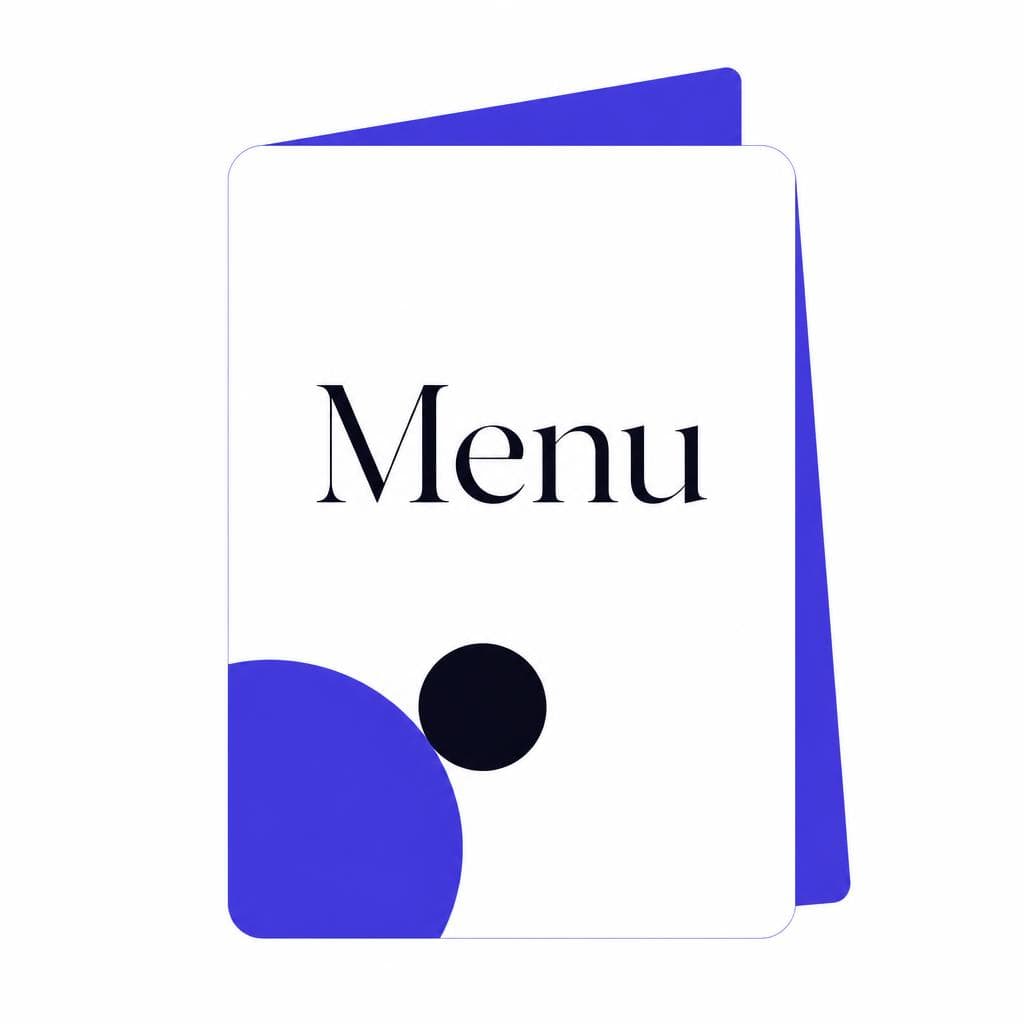
A menu does more than list dishes and prices. It is often the first substantial piece of your restaurant experience that a guest reads, studies, and holds in their hands. Before they taste the pasta, smell the coffee, or hear the first recommendation from a server, your type choices have already suggested whether the meal will feel relaxed, refined, playful, traditional, modern, or expensive.
That is why finding the right font for restaurant menu materials deserves more attention than simply choosing a typeface that looks attractive on screen. The right restaurant menu font supports fast reading in real dining conditions, reflects the personality of the venue, makes prices and dietary notes easy to find, and works consistently across printed menus, takeaway packaging, signage, social posts, and online ordering.
This guide explains how to make smart menu typography decisions, from matching font styles to your concept through testing the final menu in context. Whether you are launching a neighborhood café, refreshing a fine-dining tasting menu, or building a recognizable food brand from scratch, the goal is the same: choose type that makes your food easier to understand and more desirable to order.
How Font Choice Sets Your Restaurant’s Mood
Typography is visual tone of voice. A guest may not be able to name the style of lettering on your menu, but they will notice the feeling it creates. A sharply geometric sans serif can imply a clean, contemporary fast-casual experience. A high-contrast serif can signal formality, craft, and a more considered dining occasion. Loose handwritten lettering may suggest a family-run trattoria, a bakery, or a casual brunch spot—provided it remains readable.
The emotional message matters because people use visual cues to predict what kind of experience they are buying. Consider two menus with the same item: “Charred Octopus, White Bean Purée, Salsa Verde.” Set in a small, elegant serif with generous whitespace, it may feel chef-led and premium. Set in a rounded bold sans serif with bright color blocks, it may feel accessible, energetic, and casual. Neither treatment is inherently better. The best font for menu design is the one that accurately sets expectations for the food, service style, price point, and setting.
A useful starting exercise is to define three to five adjectives for your restaurant. For example, a coastal seafood bar might be “fresh, confident, sunlit, unfussy.” A wine-focused bistro might be “warm, intimate, knowledgeable, seasonal.” A vegan lunch counter could be “optimistic, direct, colorful, modern.” Compare prospective typefaces against these words instead of asking only, “Do I like this font?”
Also consider the gap between your current visual identity and your actual guest experience. If a menu looks extremely luxurious but the restaurant operates as a quick-service counter, guests may feel confused. Conversely, if an ambitious chef’s menu uses generic, cramped typography, it can undersell the care in the kitchen. A restaurant branding font should make a believable promise—and the experience should fulfill it.
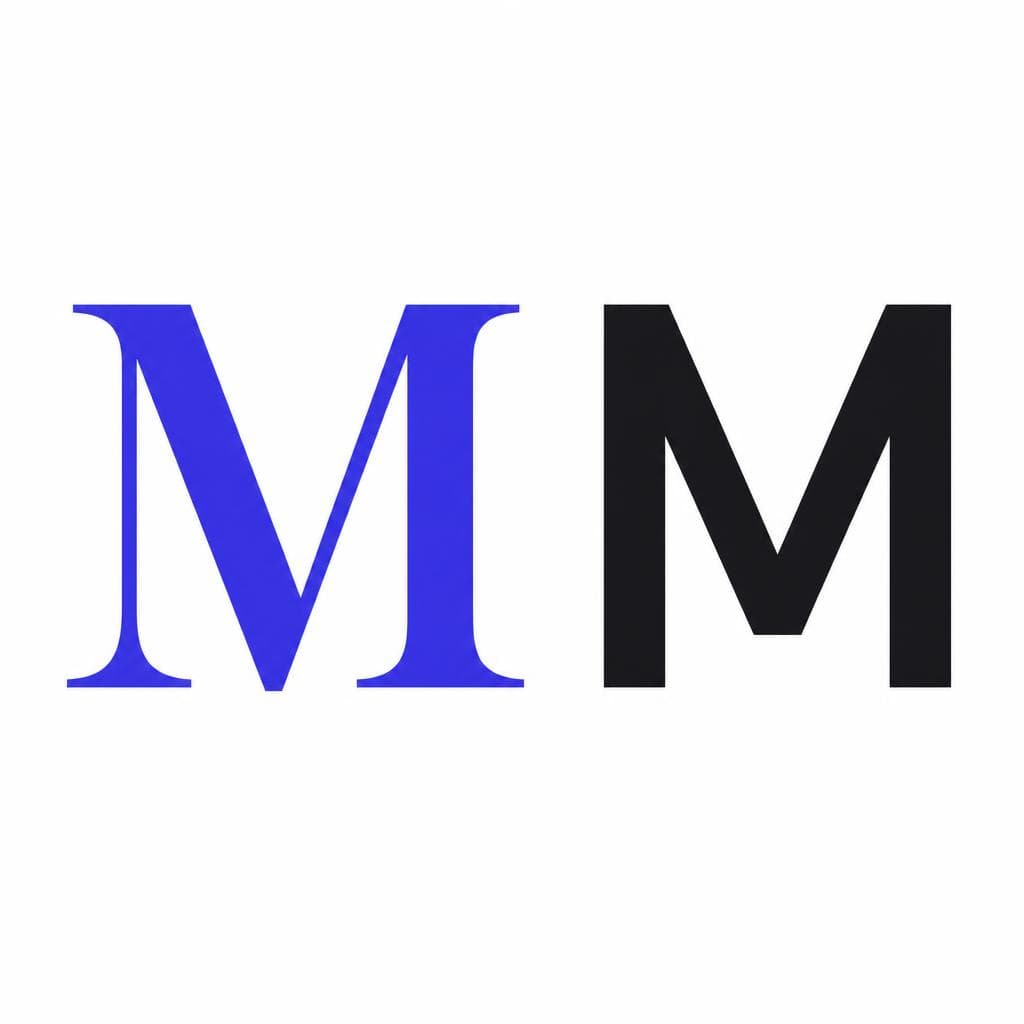
Choose Font Styles That Fit Your Restaurant Concept
There is no universal restaurant menu font because restaurants serve different audiences, cuisines, and occasions. Still, certain font characteristics tend to work well for common concepts. Treat these as strategic starting points rather than rigid rules.
### Fine dining, tasting menus, and chef-led concepts
Elegant serif families often work well for fine dining because they can convey heritage, precision, and sophistication. Look for a serif with clear letterforms, moderate spacing, and a range of weights. Pair it with a restrained sans serif for practical information such as dietary markers, wine regions, course headings, and prices. Avoid overly delicate display fonts for body copy; low light and small print sizes can make thin strokes disappear.
### Neighborhood bistros, wine bars, and Italian restaurants
Warm serifs, humanist sans serifs, and modest italic accents can create a welcoming, conversational feel. A menu design font in this category should feel crafted without becoming theatrical. For instance, use a classic serif for dish names, a simple sans serif for descriptions, and italics sparingly for provenance notes such as “from our local farm” or “house-made.”
### Cafés, bakeries, and brunch spots
A friendly sans serif is usually a reliable foundation because it reads well at a glance and performs across menu boards, cups, websites, and Instagram graphics. A handwritten accent font can add personality for one or two elements, such as “Today’s Bake” or a seasonal special, but should not carry the entire menu. Many script fonts become difficult to read when printed small or viewed from a distance.
### Fast casual, street food, and takeout brands